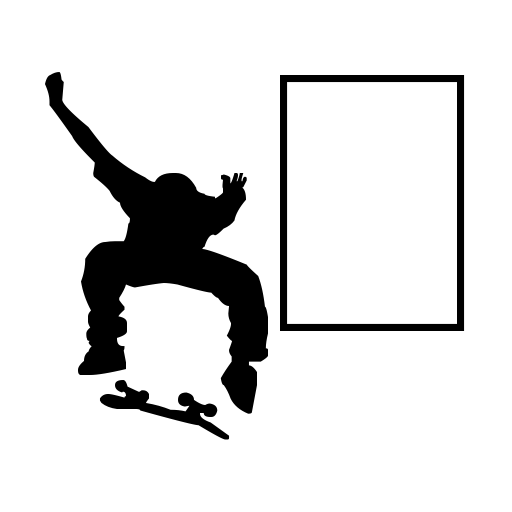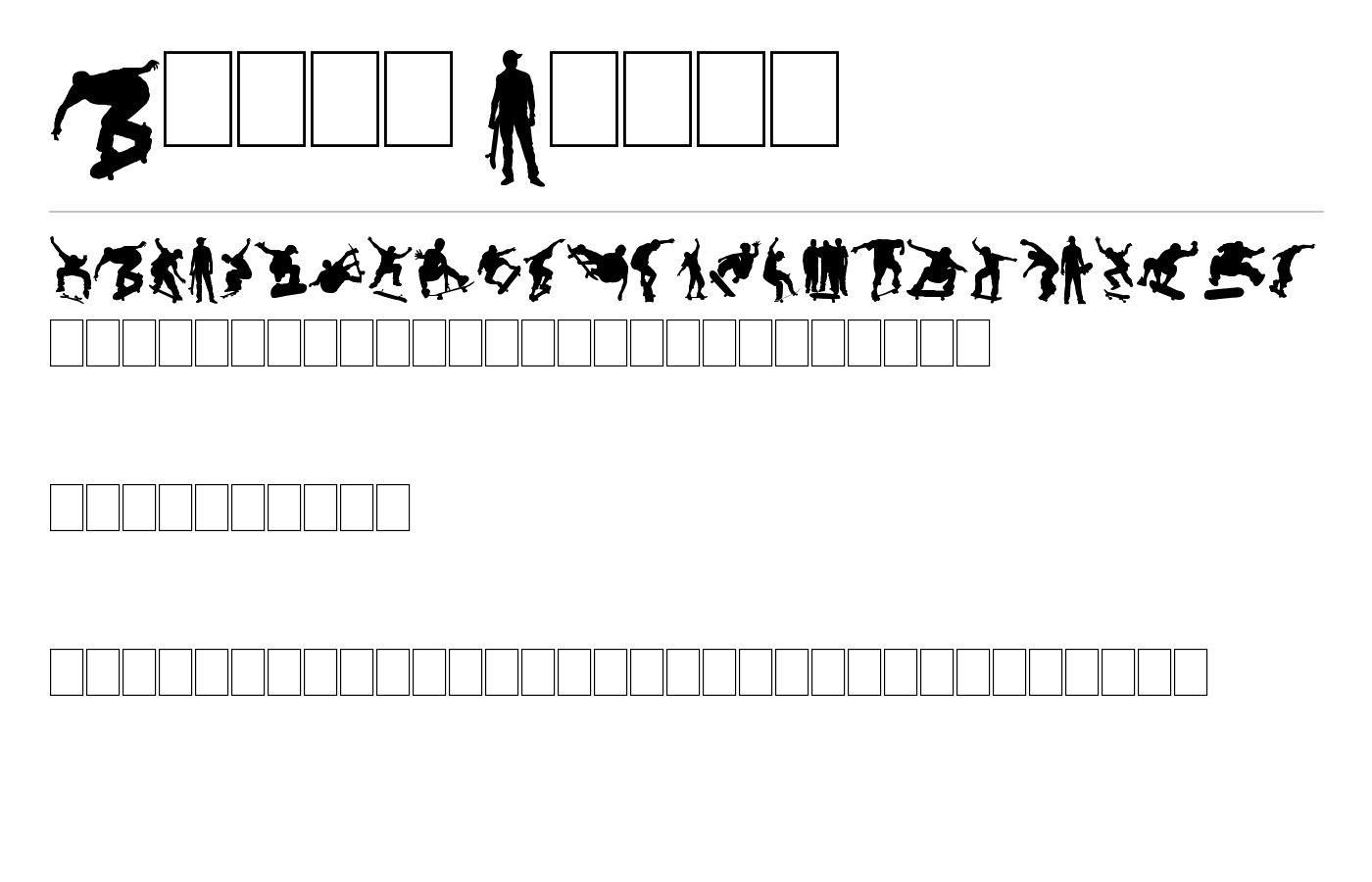
Board Dudes is a playful and unique display font featuring dynamic silhouettes of skateboarders in action. It’s perfect for adding a youthful, energetic vibe to designs related to skate culture, sports, or urban lifestyles. This font works best for eye-catching logos, posters, and branding where a bold, informal statement is needed.
Board Dudes Font
About Board Dudes Font